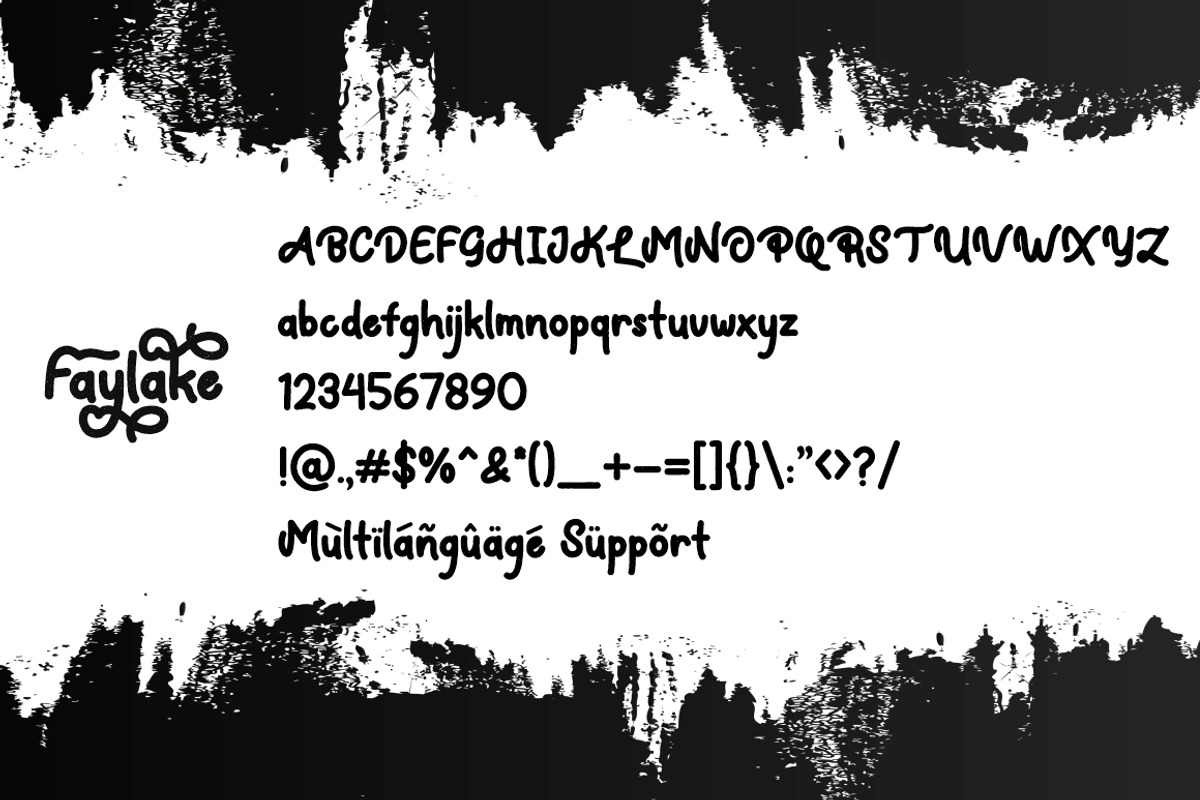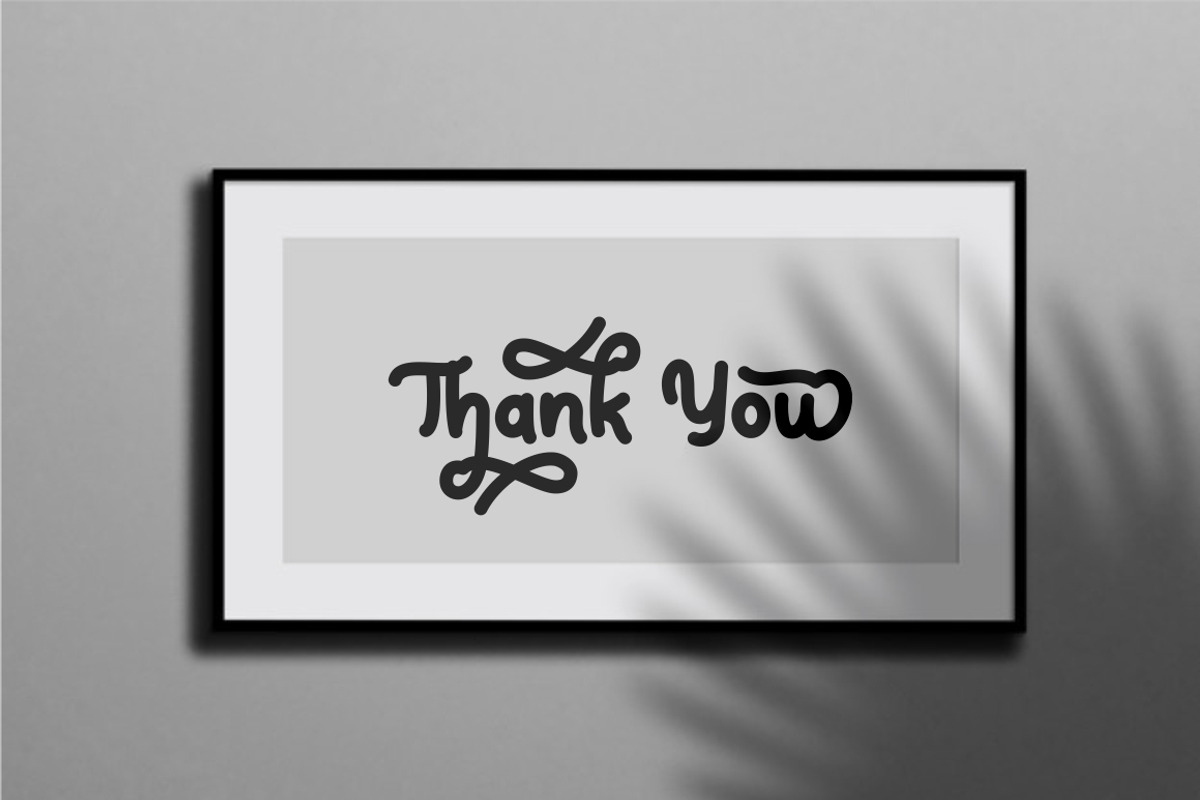
Faylake - Bold Monoline Handwritten
Faylake
Say Hello to Faylake, a bold monoline handwritten font. Faylake come with clean and rough font version. This font can also be used in various styles, casual, vintage, fun and simple letter. Faylake is perfect for branding design, posters, apparel, for logotype, website header, fashion design and any more.
Come with Opentype feature with a lot of alternates, its help you to make great lettering. This font is also support multi language.